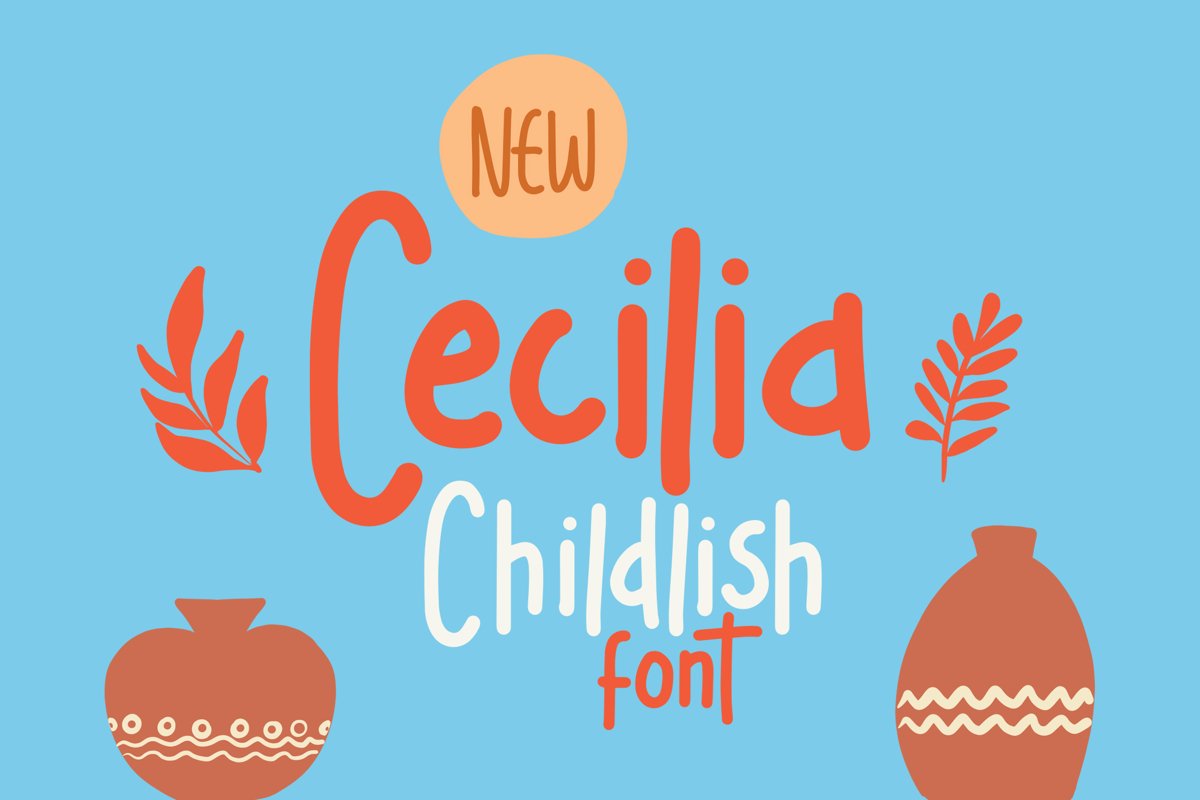
Cecilia - Childlish Fonts that contain lowercase, uppercase, symbol, and also support multi language. There’s a lot ligatures in this font. This Font also comes with ligatures, alternates and many more. this font suitable for fashion, branding, catalog and other design what you want.